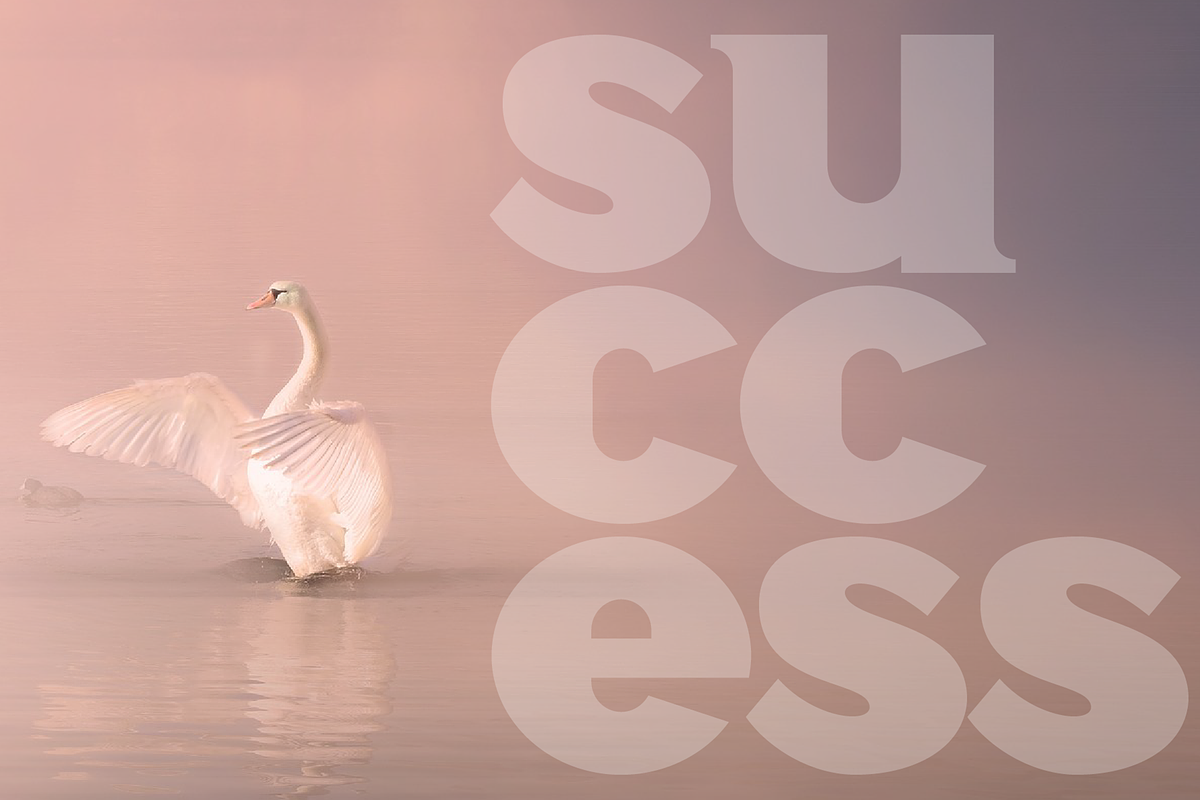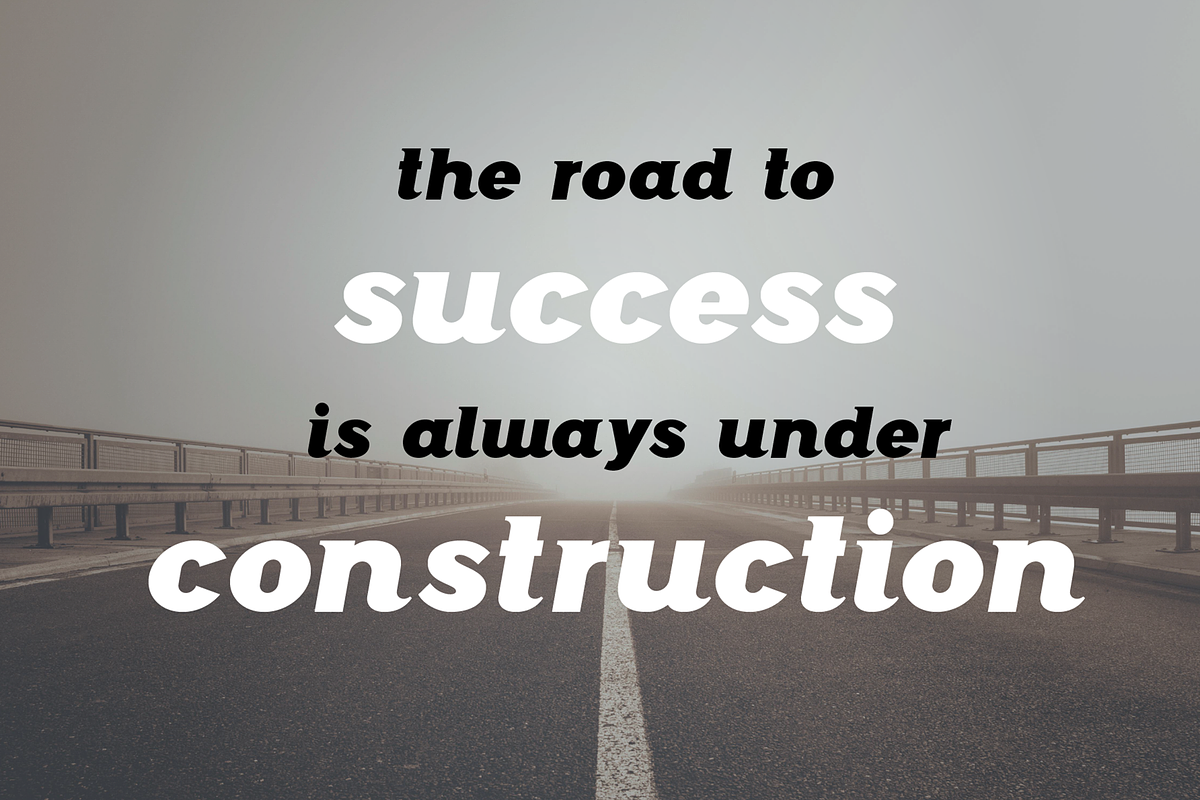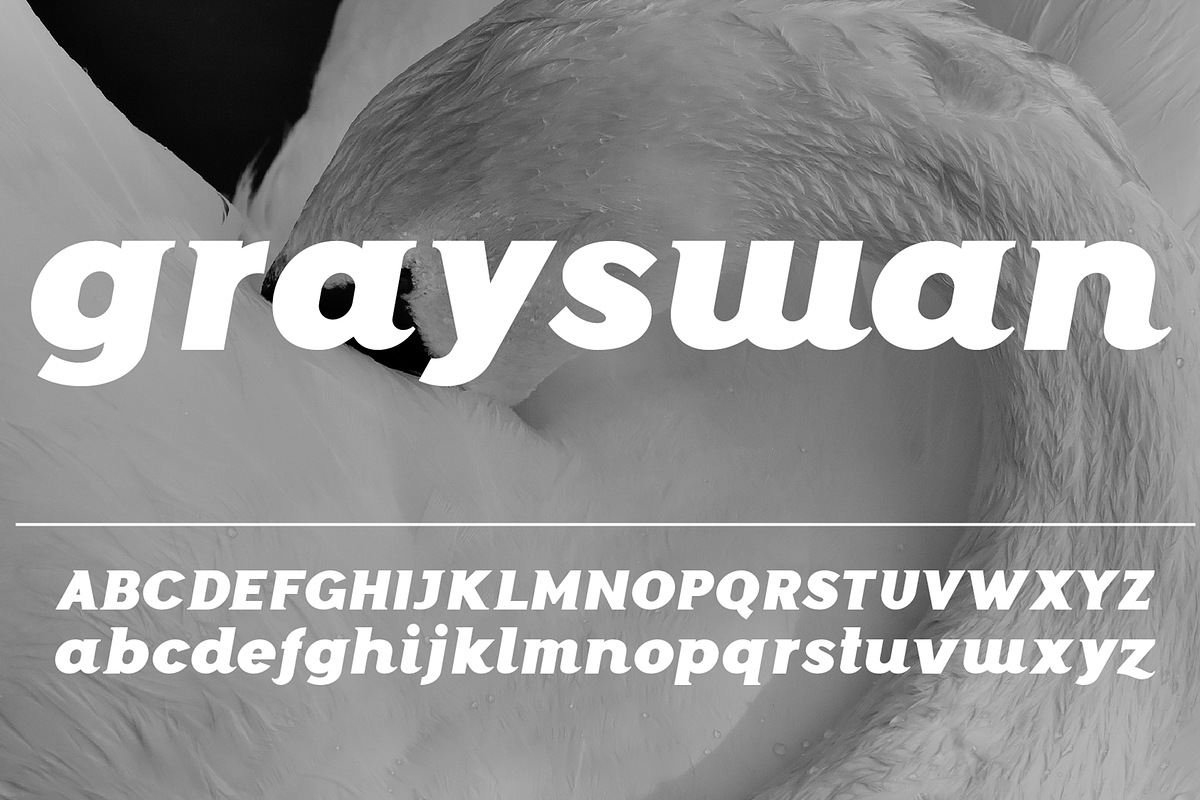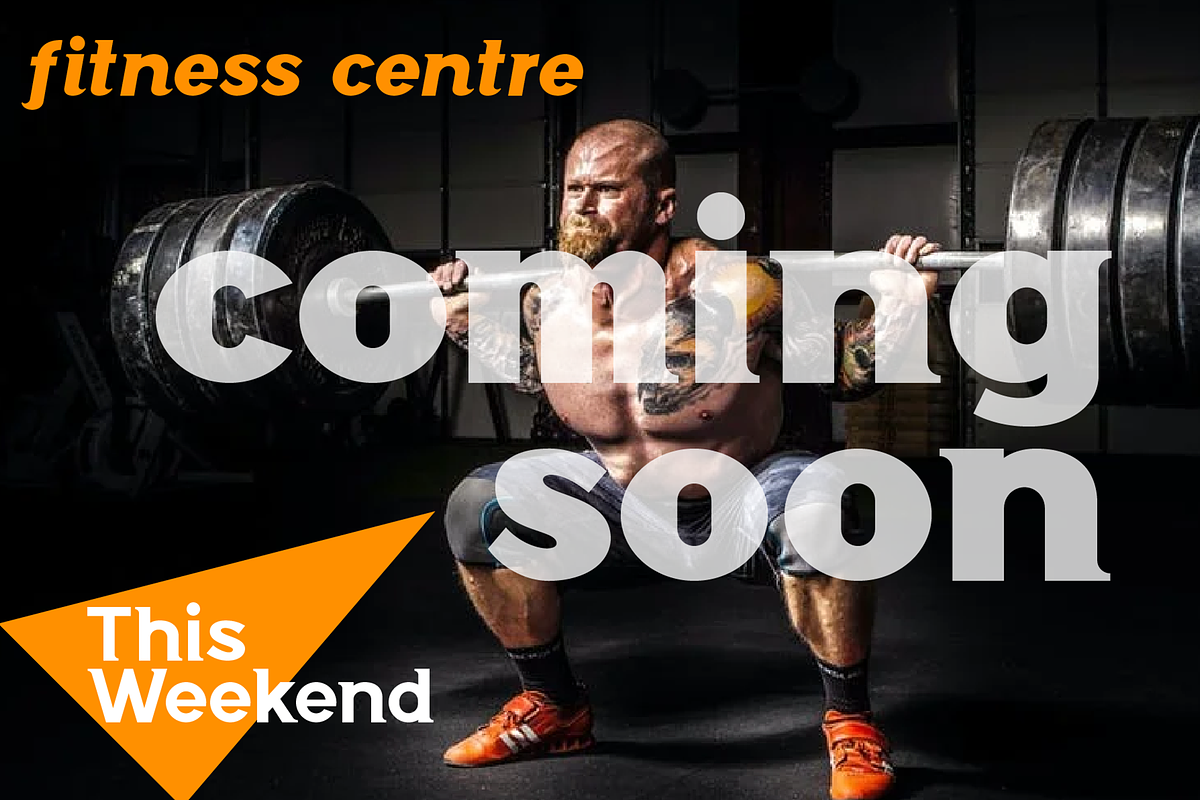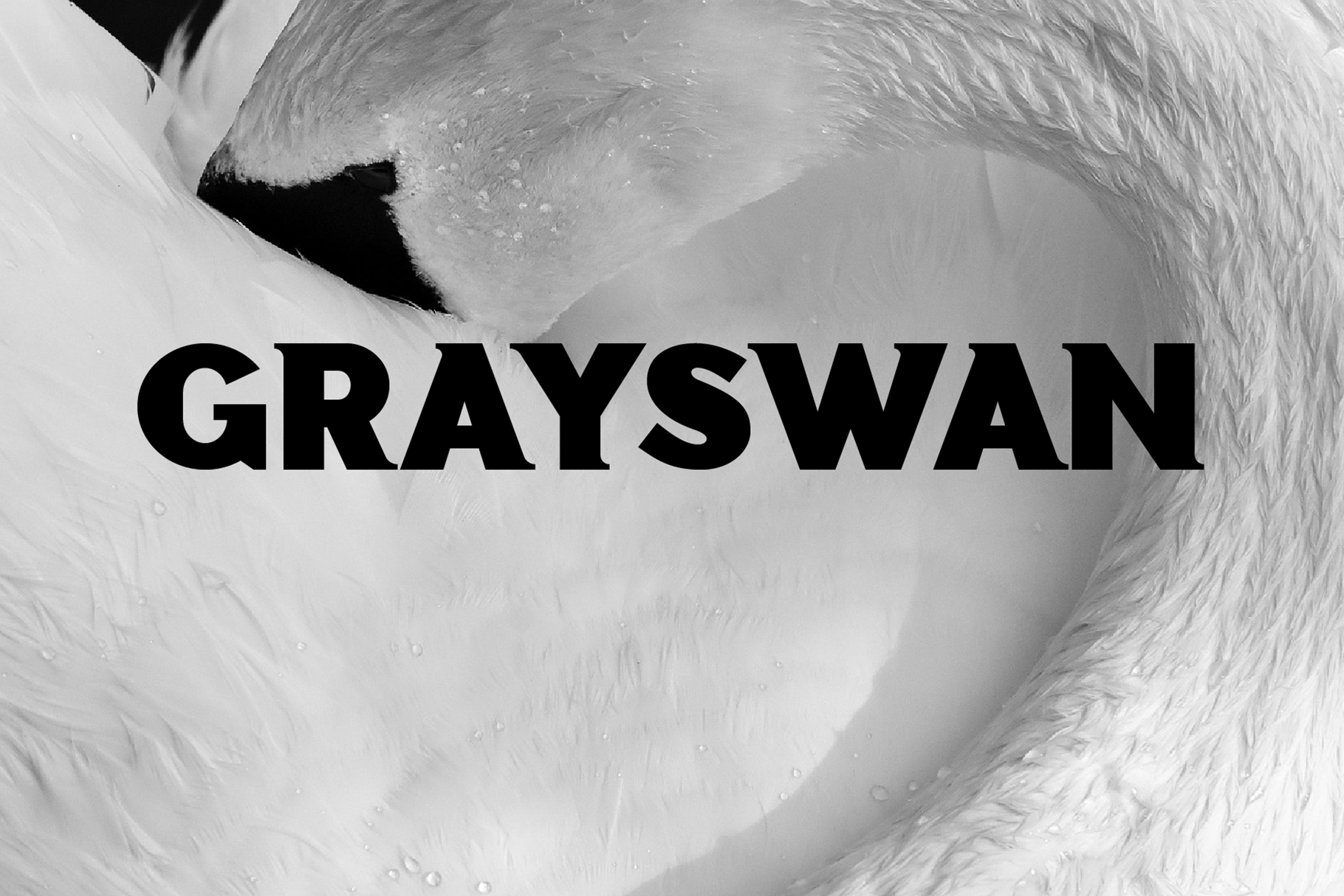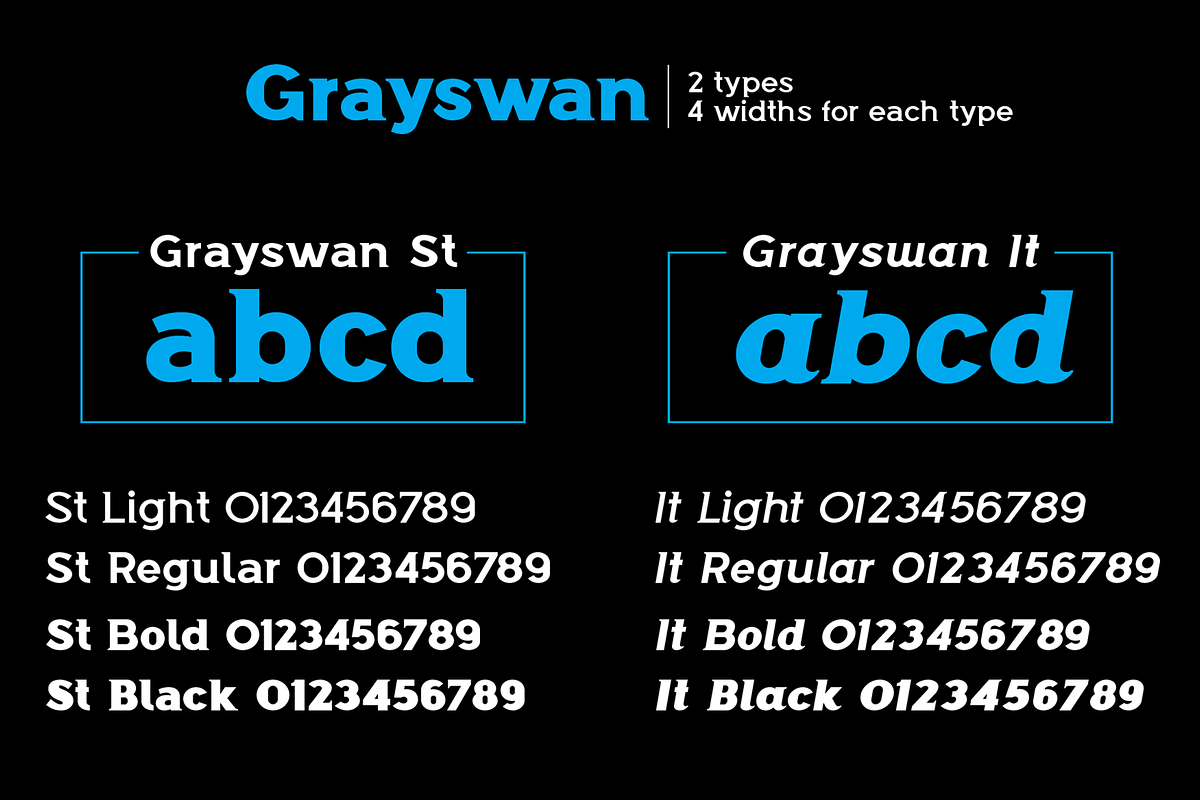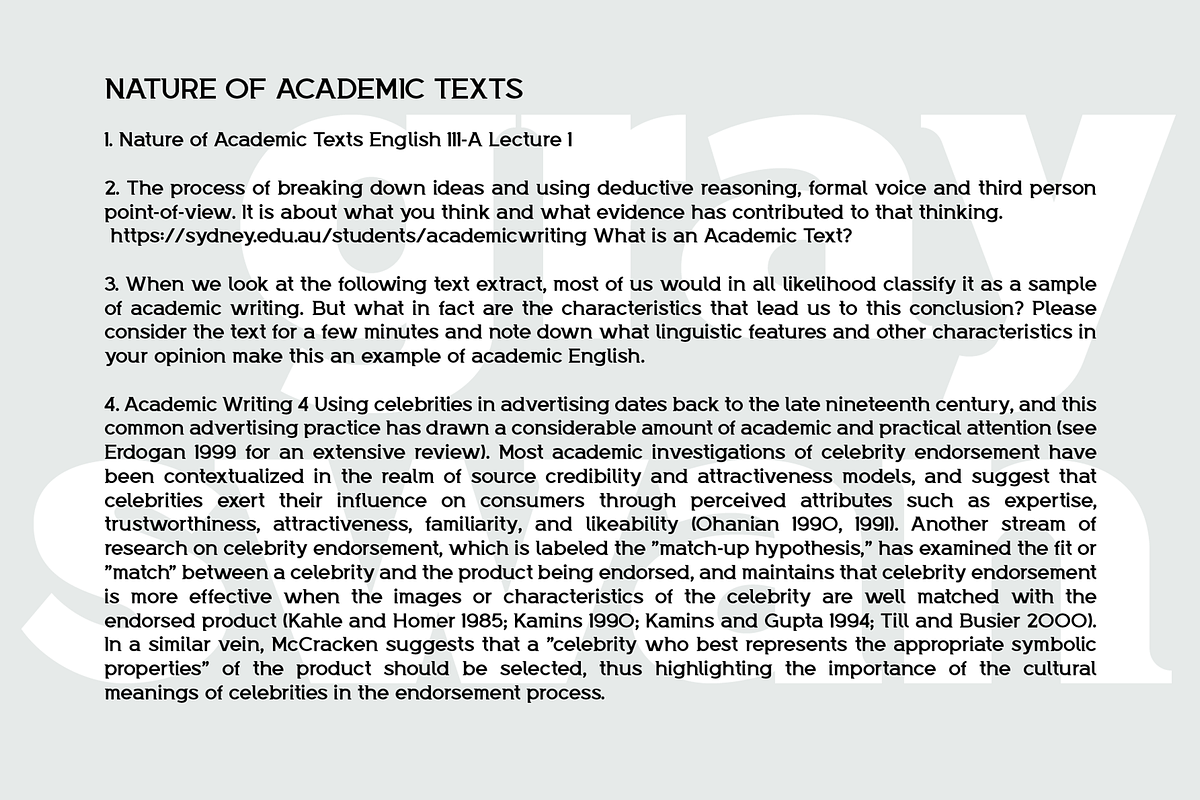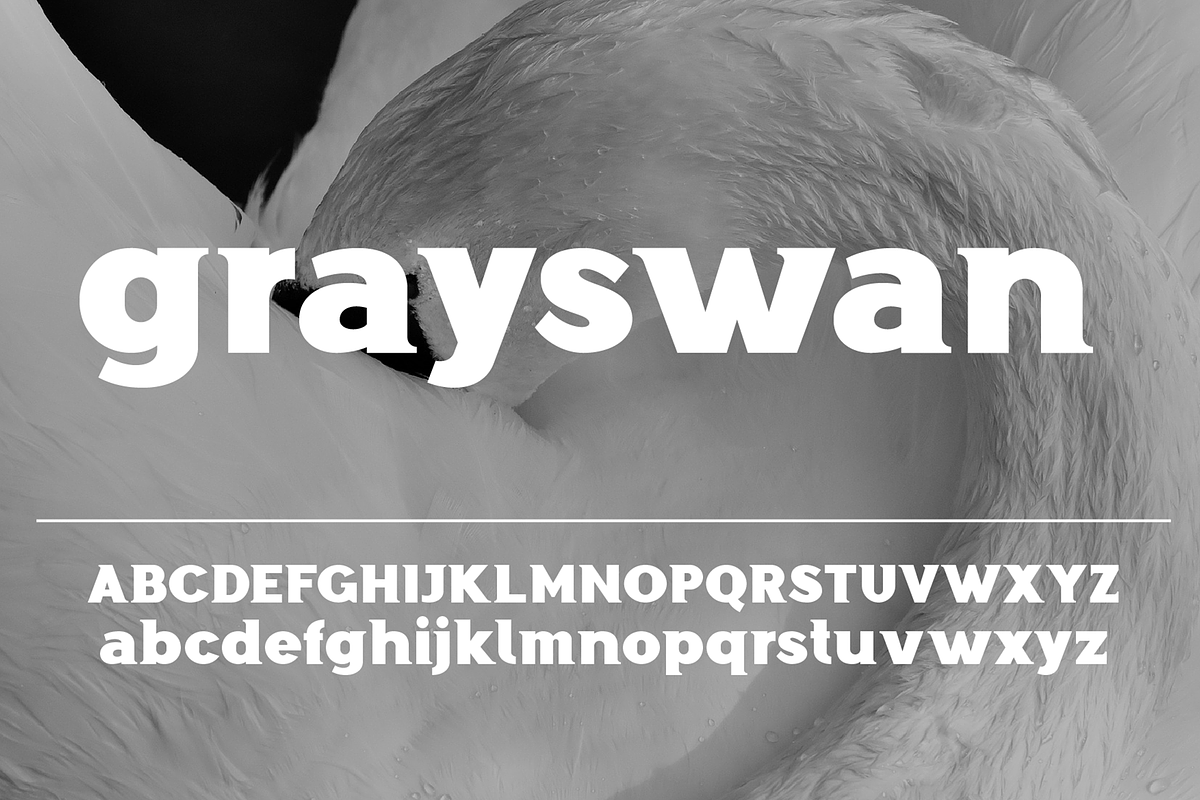
Grayswan font family
Grayswan is a modern narrow font with serif, includes upper and lower case characters, Latin, Cyrillic, Latin Eastern Europe, Turkish, Baltic and other, 500+ symbols. Grayswan family consists of 8 fonts, divided into 2 subgroups (according to the type of style - St, Rd), and have the 4 types of thickness in each subgroup. Grayswan fonts will be useful in developing a brand, creating posters and other graphic products, and for word processing.